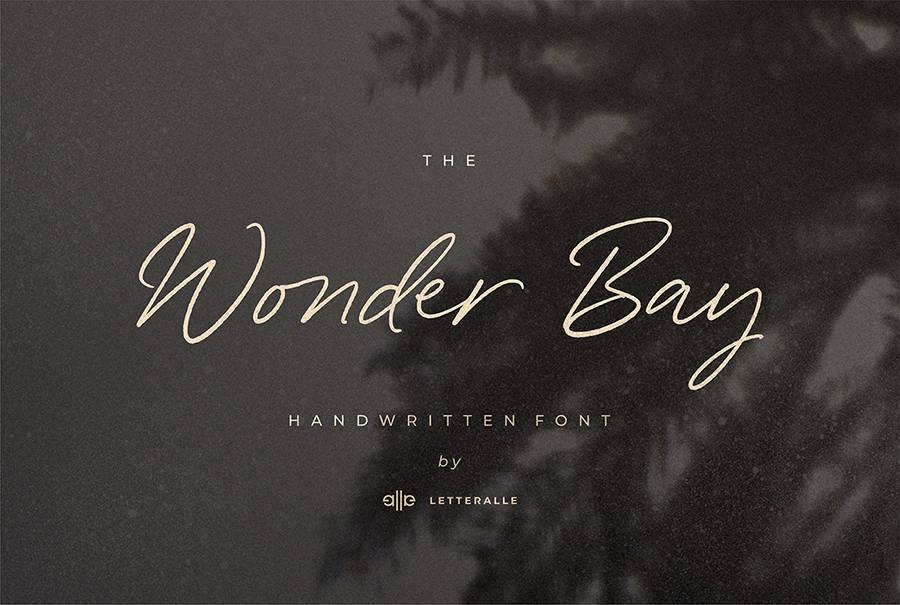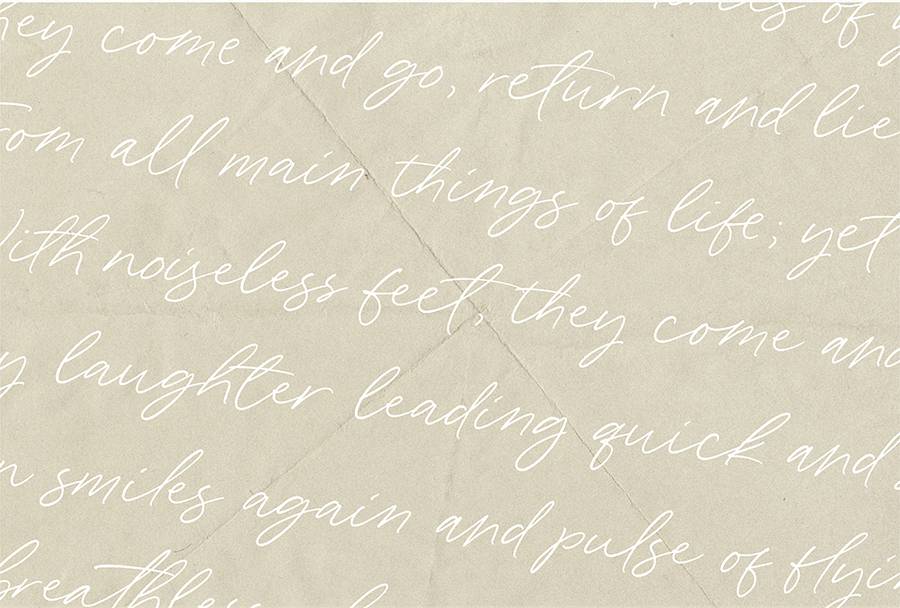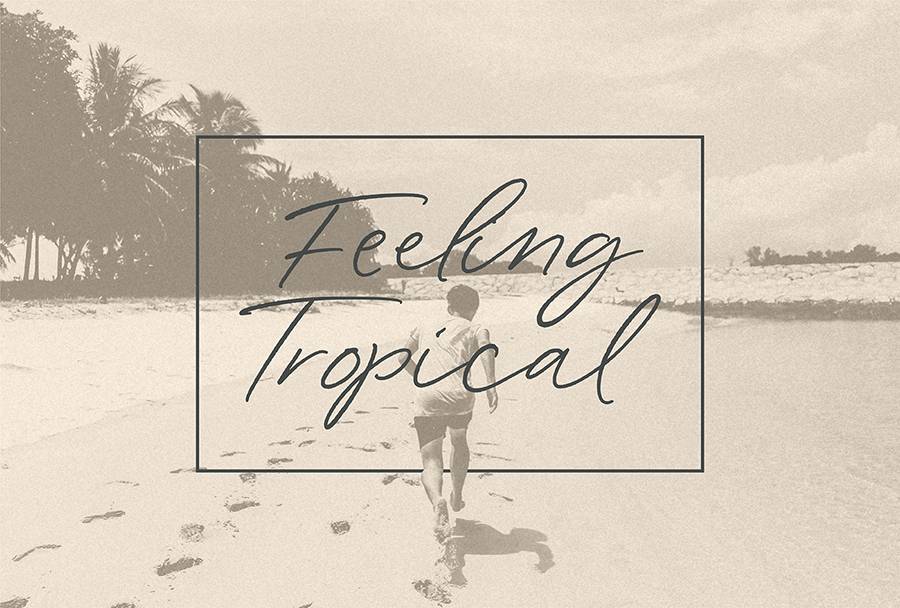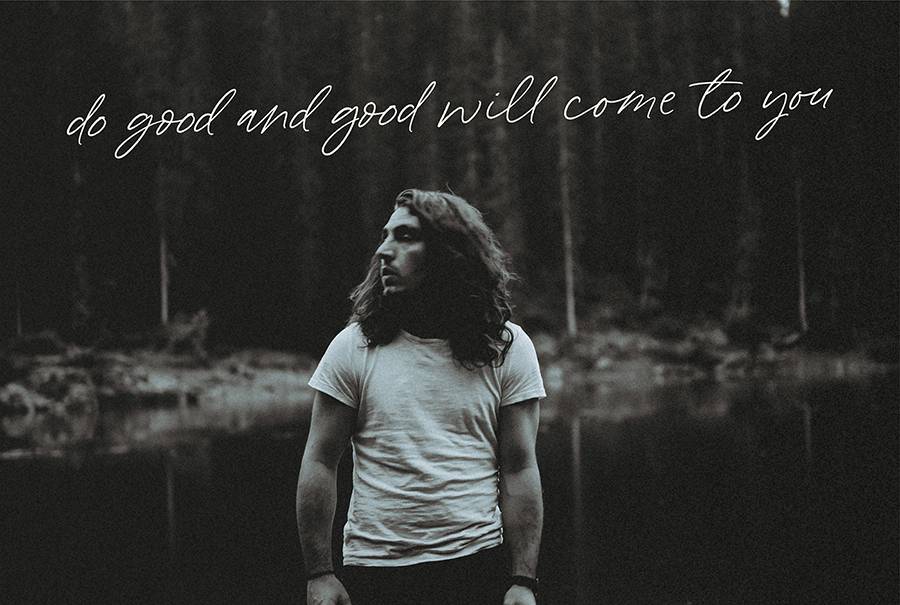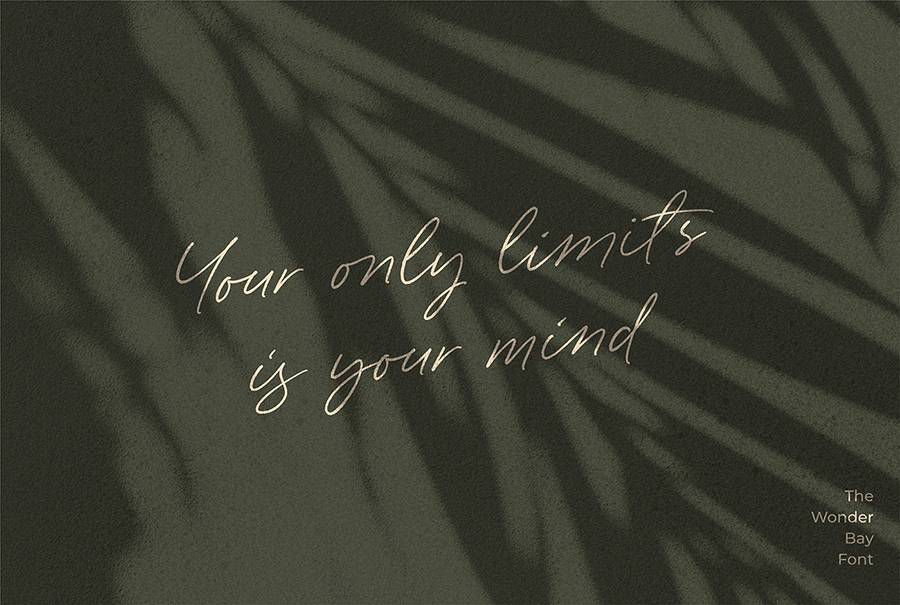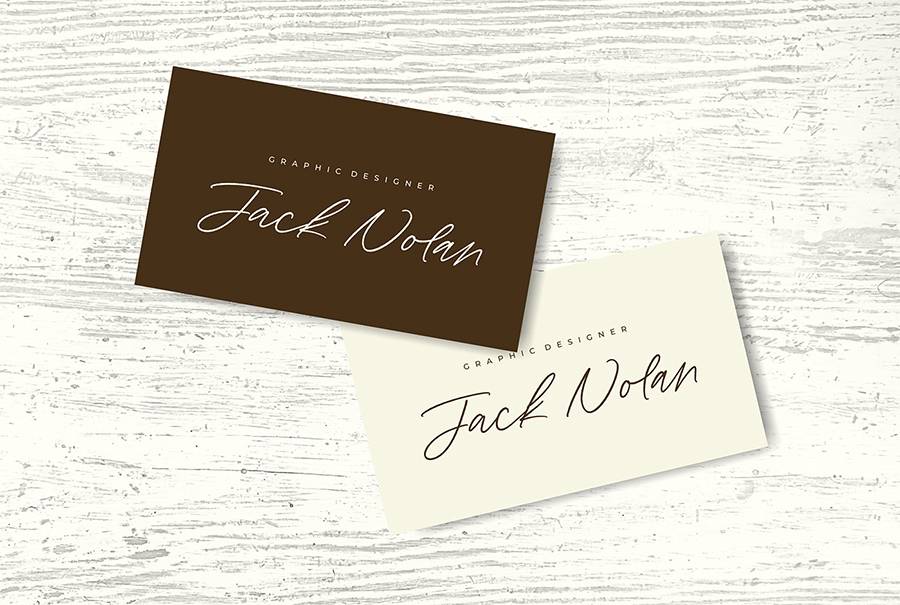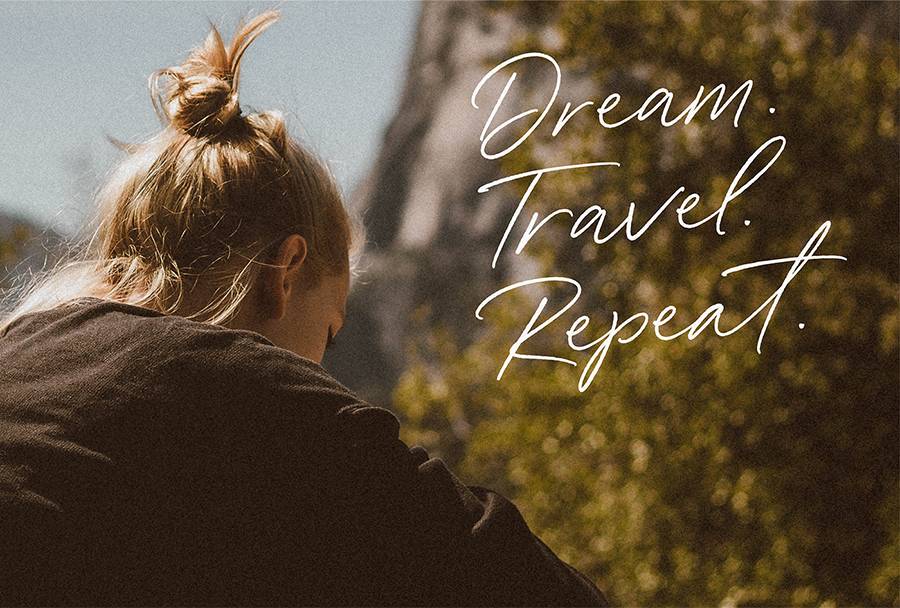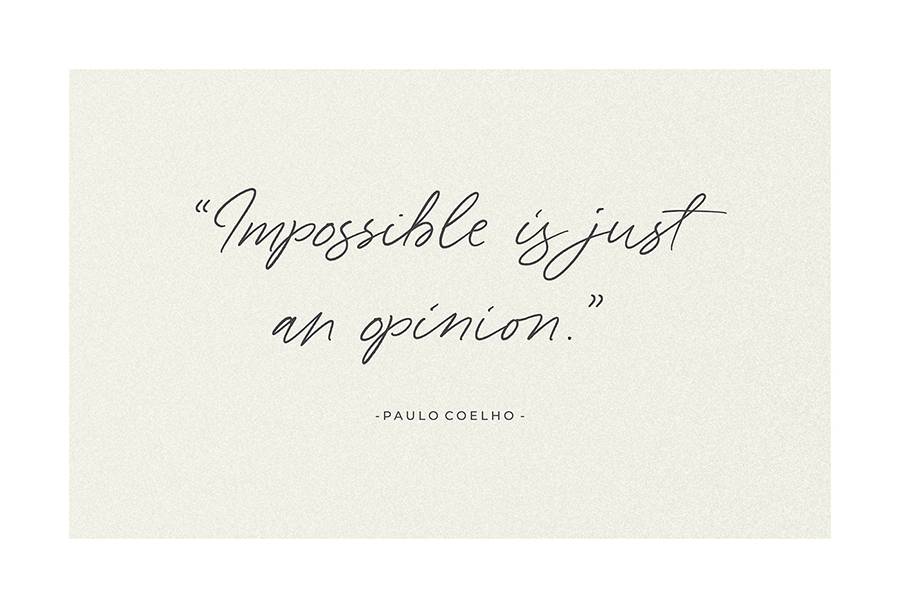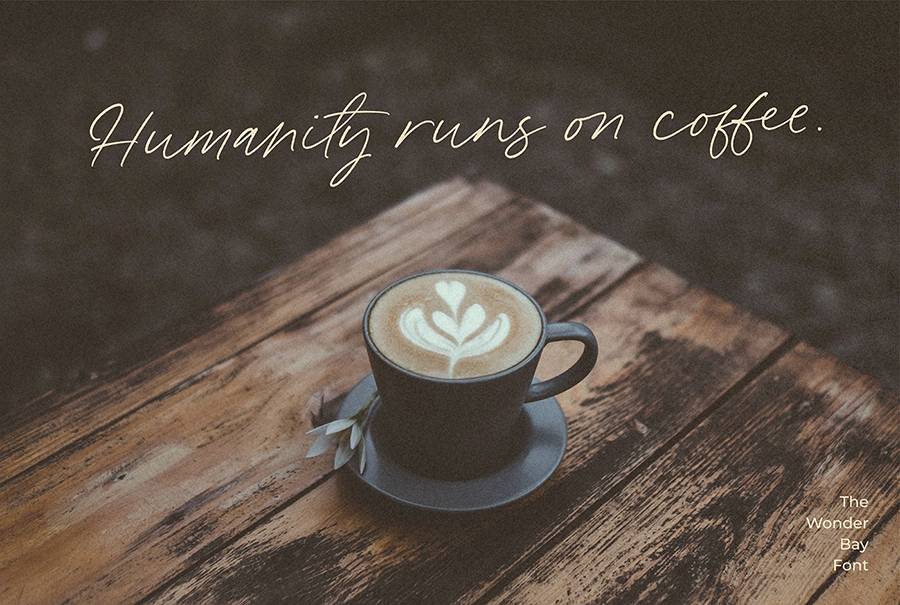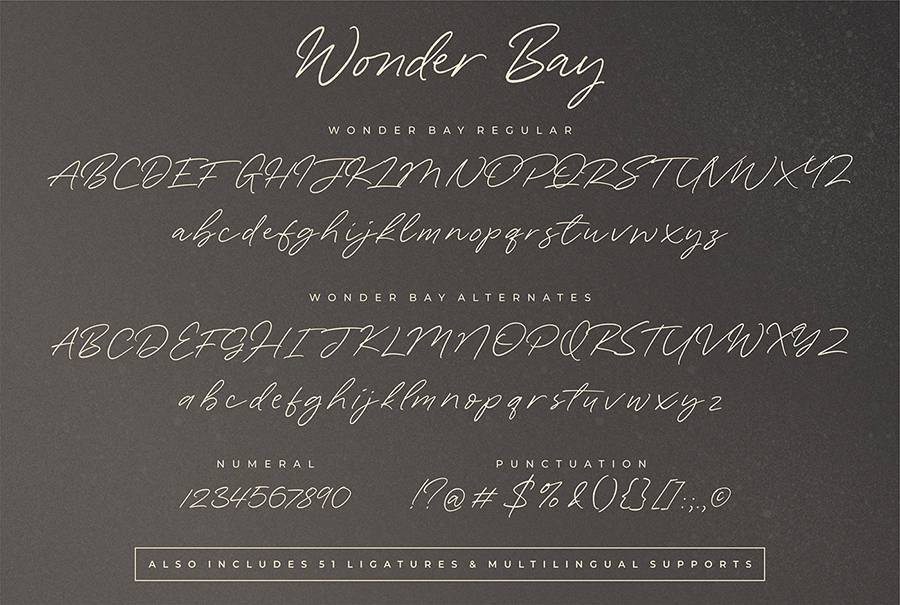
Wonder Bay Script Demo is a delicate and elegant handwritten script font characterized by its thin, flowing strokes and graceful letterforms. With a light weight and natural, slightly irregular connections between characters, it evokes a refined yet personal feel, making it ideal for invitations, branding, and stylish editorial use where a touch of sophistication and warmth is desired. This font works beautifully in projects that need a modern, handwritten aesthetic that communicates creativity and elegance.
Wonder Bay Script Demo Font
About Wonder Bay Script Demo Font